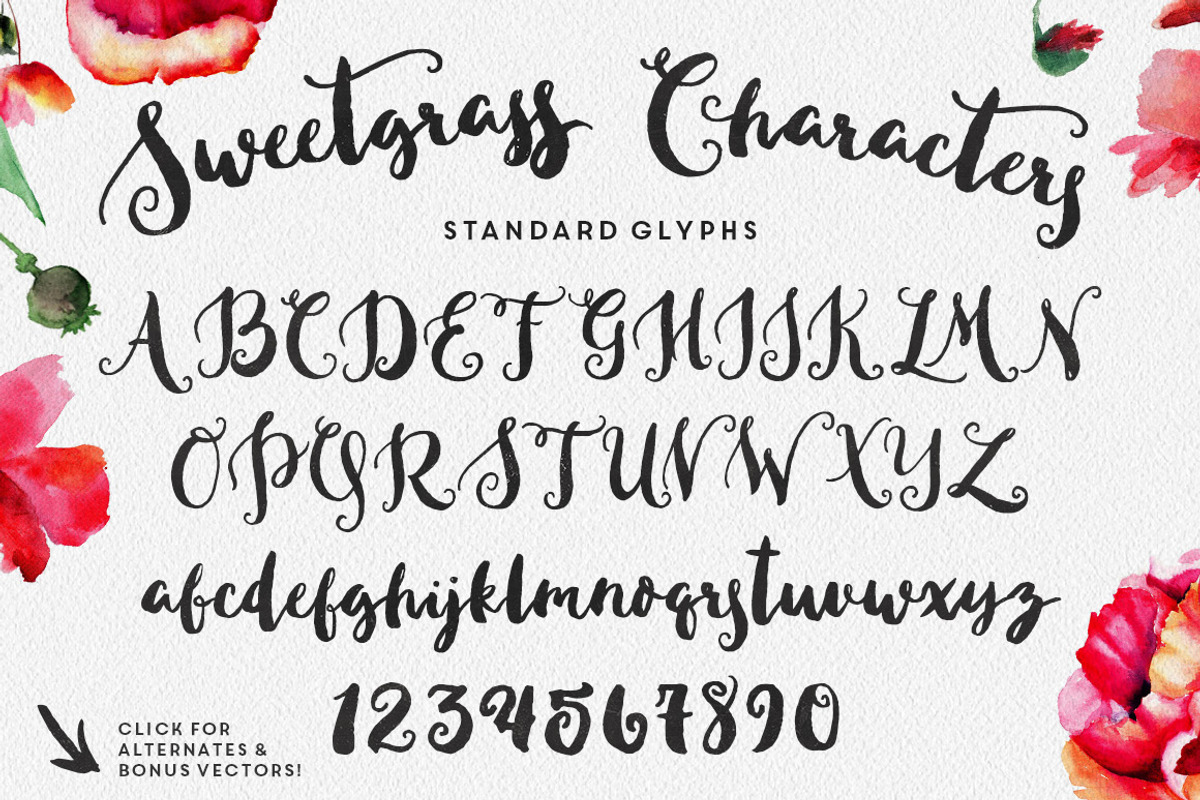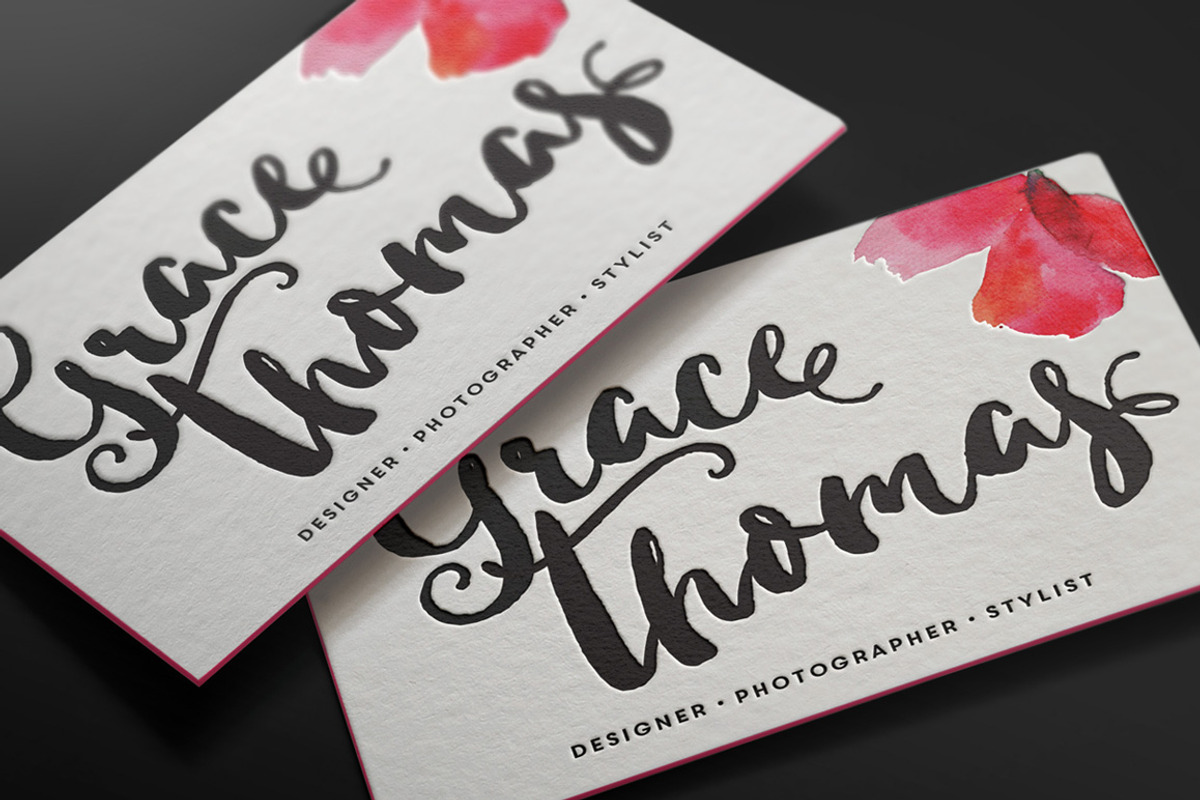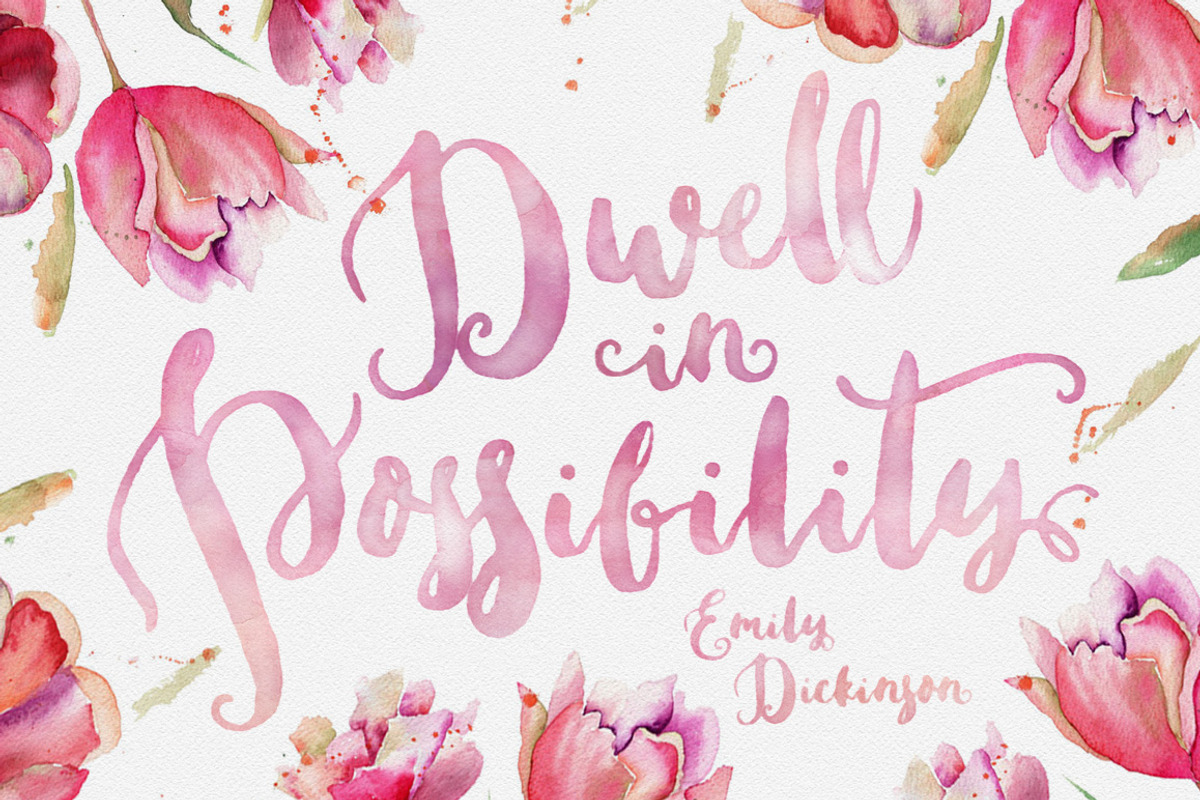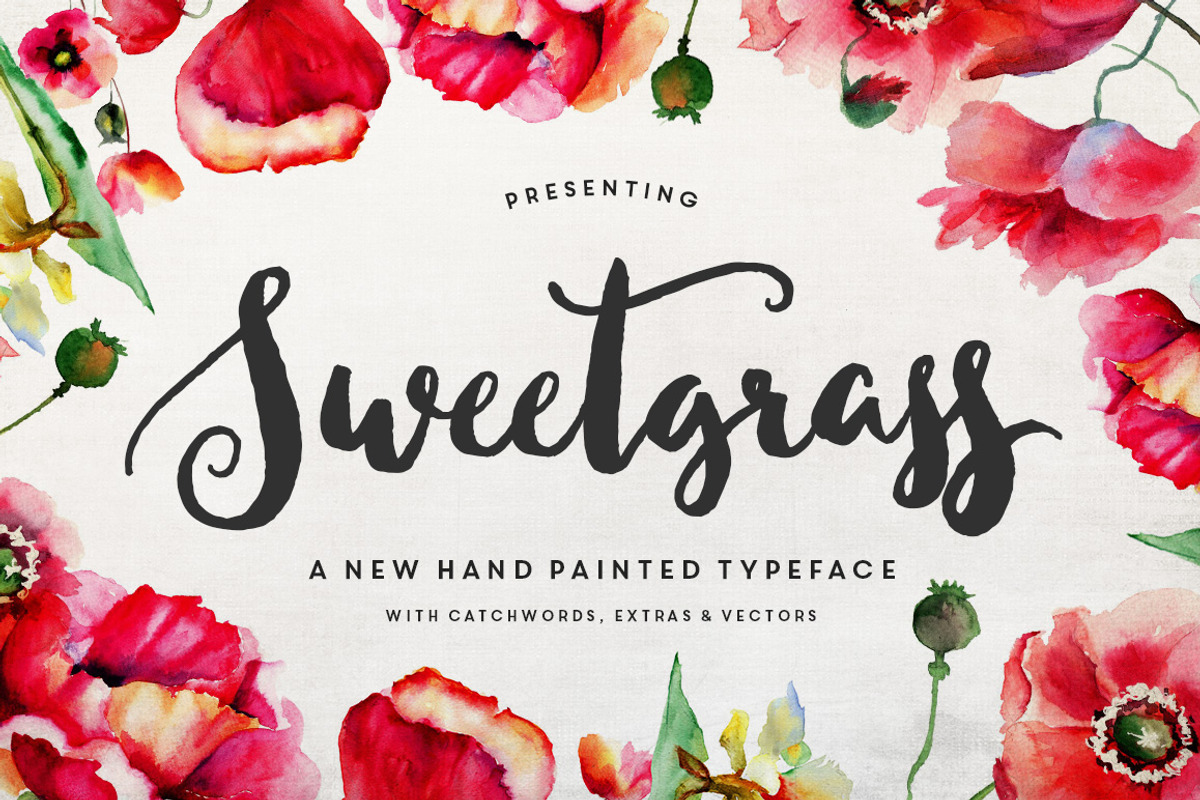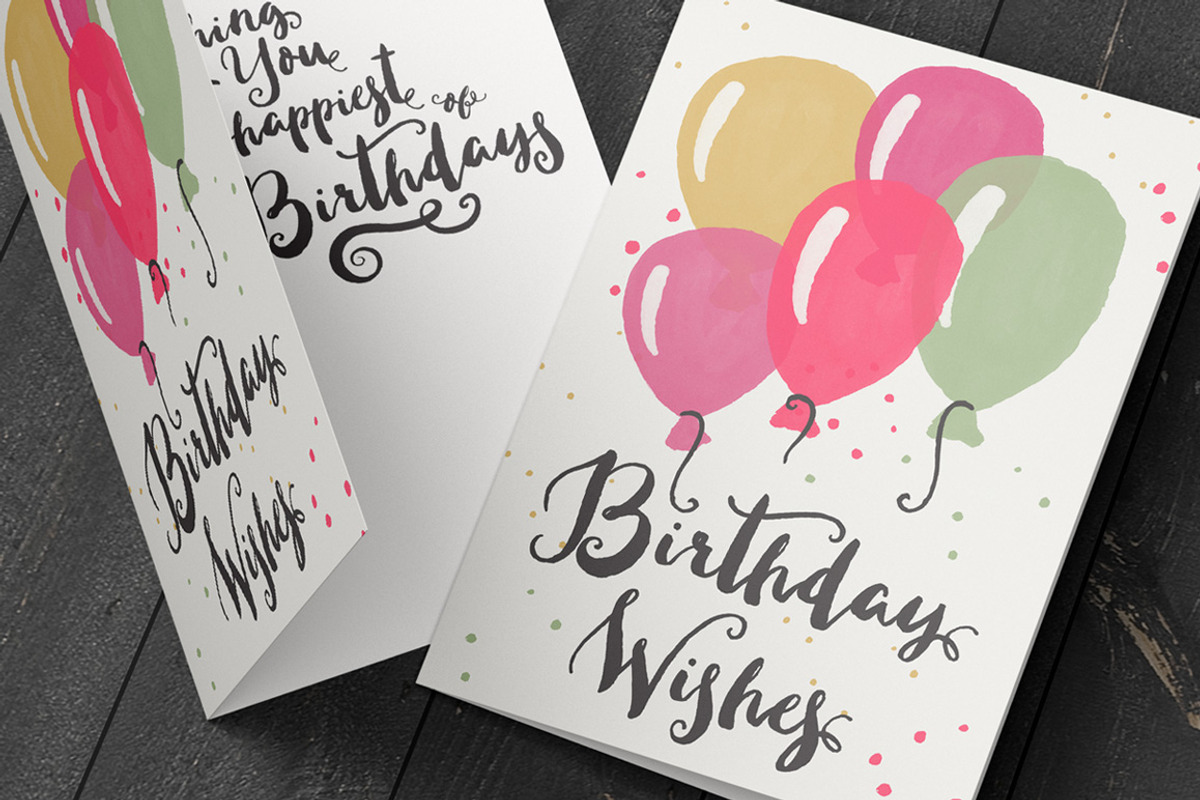
Sweetgrass Typeface
Meet Sweetgrass! A delicate, hand-inked script with an 'unfonty' feel. Sweetgrass includes plenty of ends, alternates and extras, and looks lovely on wedding invitations, greeting cards, logos, business cards and more! Go ahead and give it a test drive below!